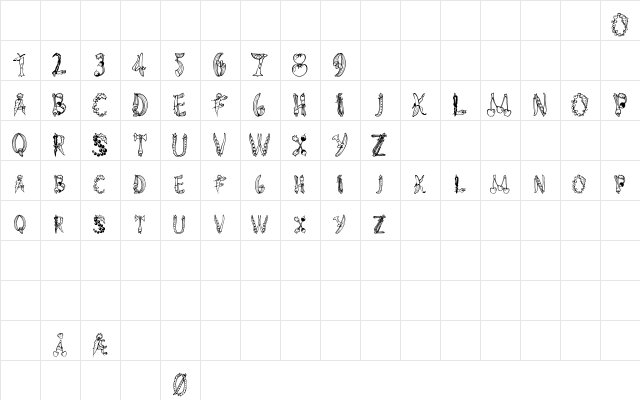
AlphaGarden Regular
Design Context for AlphaGarden Typeface
AlphaGarden is a composed and adaptable typeface that performs quietly and consistently across a wide range of design contexts.